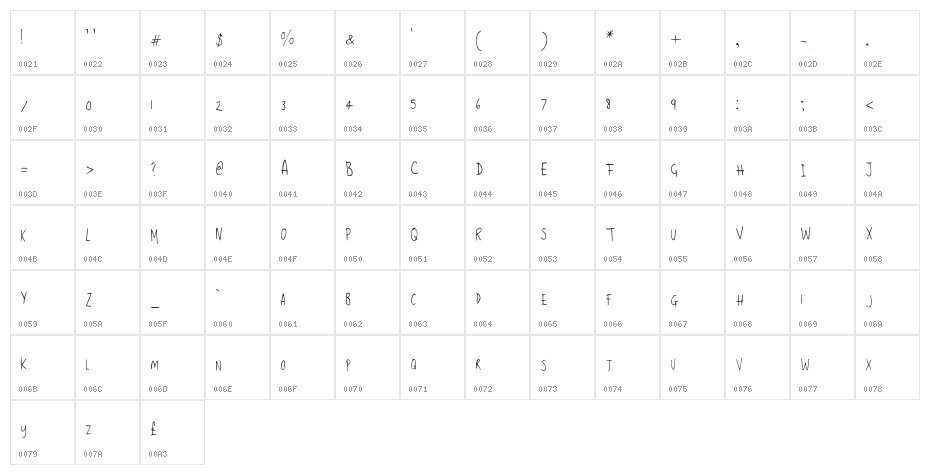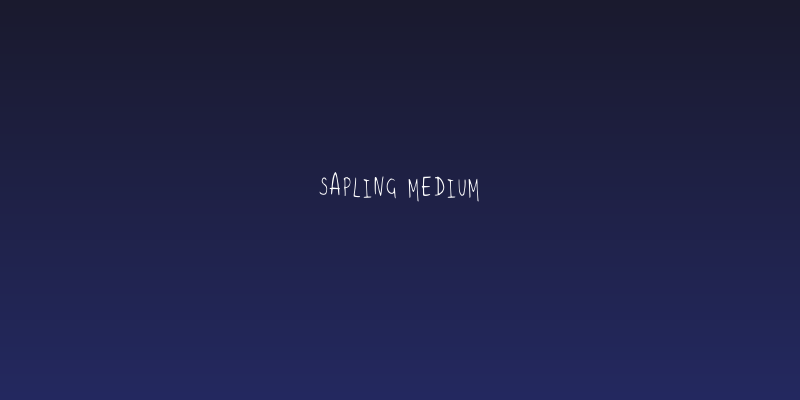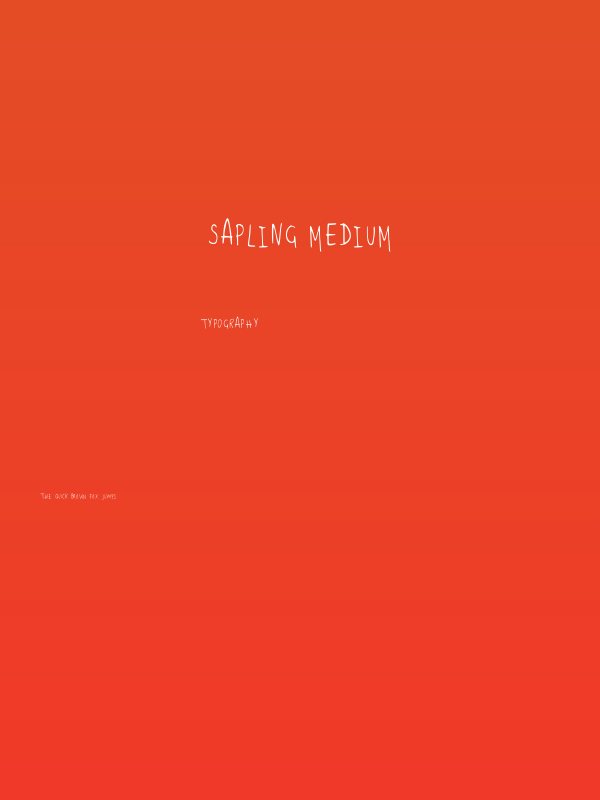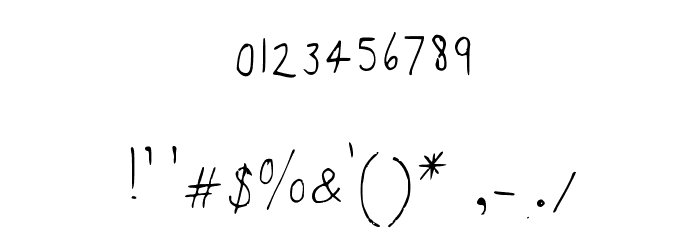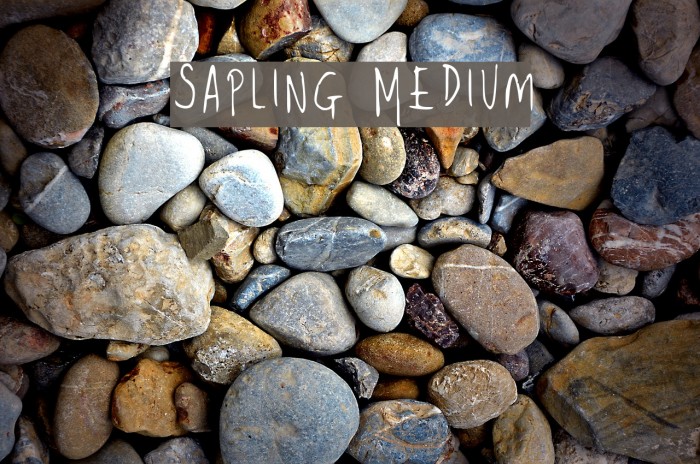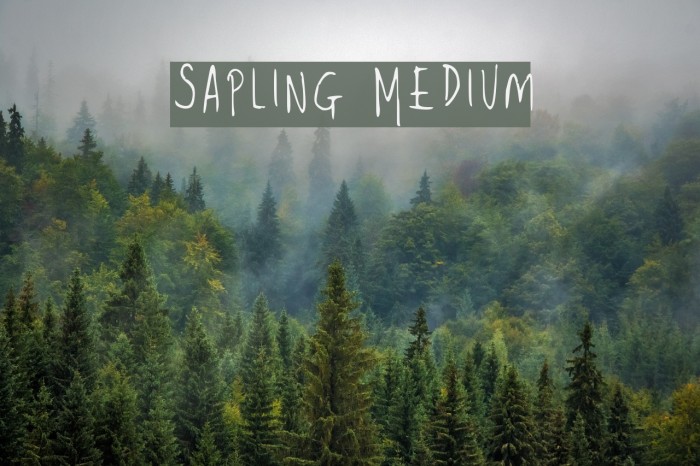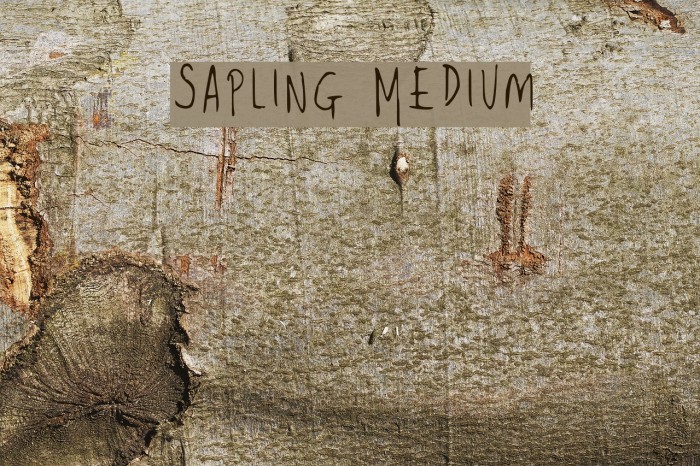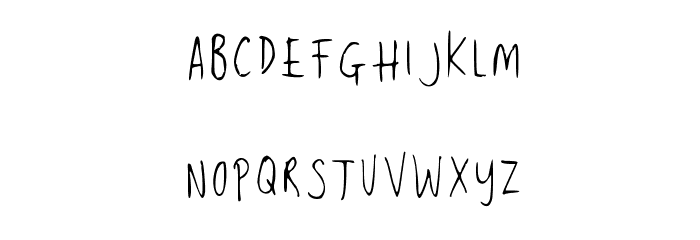
Sapling Medium Font
Sapling Medium Description
This font features a playful and casual handwritten style, characterized by its irregular and slightly whimsical letterforms. The strokes are uneven, giving it a natural and organic feel, reminiscent of a personal note or a doodle. The uppercase and lowercase letters maintain a consistent style, with a slight tilt and varied line thickness that adds to its charm. The numerals and special characters follow the same playful aesthetic, making it suitable for projects that require a touch of informality and creativity. Its unique style makes it stand out, while still being legible and versatile.
| Proposed Projects | Ideal for greeting cards, children's books, casual invitations, and creative branding. |